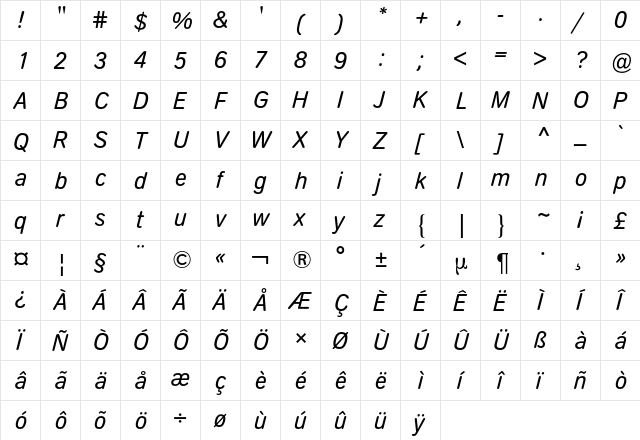
Aral-Type BQ Regular Italic
Design Context for Aral-Type BQ Typeface
Aral-Type BQ is a composed and adaptable typeface that performs quietly and consistently across a wide range of design contexts. The dynamic lean of this cut emphasises speed and emphasis in any layout.
Pro Tip: Try Aral-Type BQ for annotation and caption copy alongside an upright companion — the contrast in angle creates a dynamic but ordered typographic system.